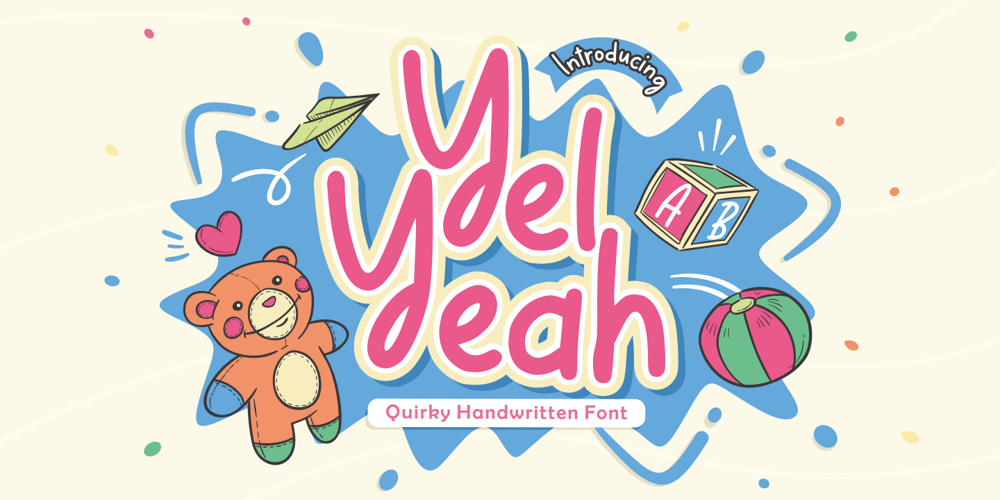
Yel Yeah Font Family was designed by Fachrizal Yusuf and published by Allouse Studio. Yel Yeah contains 1 styles and family package options. Yel Yeah a Quirky Handwritten Font tha will bring an fun and playful impression.Yel Yeah is perfect for any tittles, logo, product packaging, branding project, megazine, social media, wedding, or just used to express words above the background.Yel Yeah also come with Multi-Lingual support.Enjoy the font, feel free to comment or feedback, send me PM or email. Thank You!